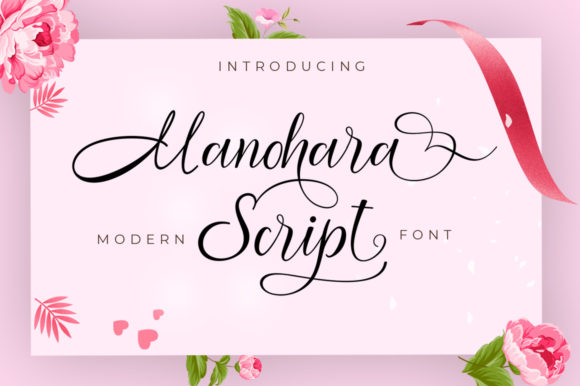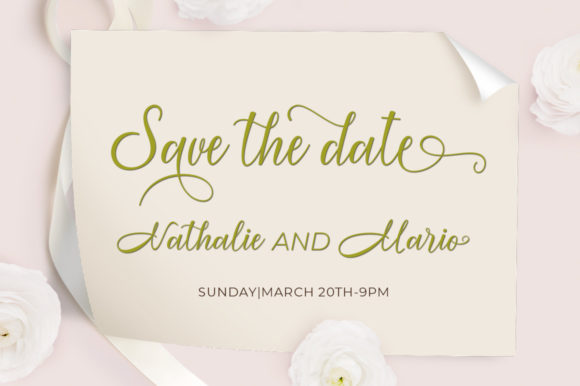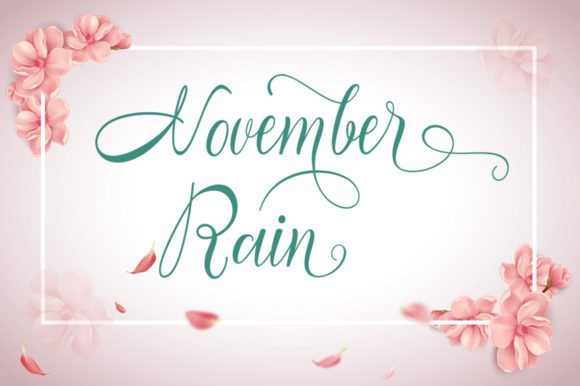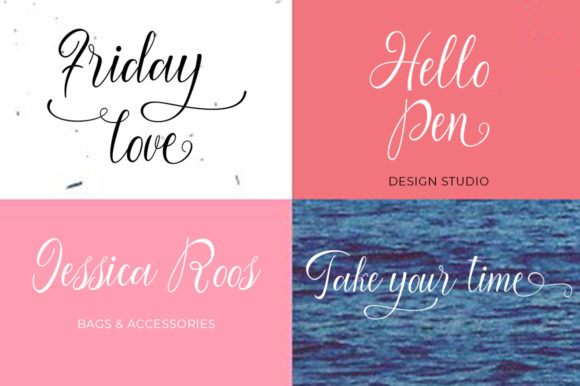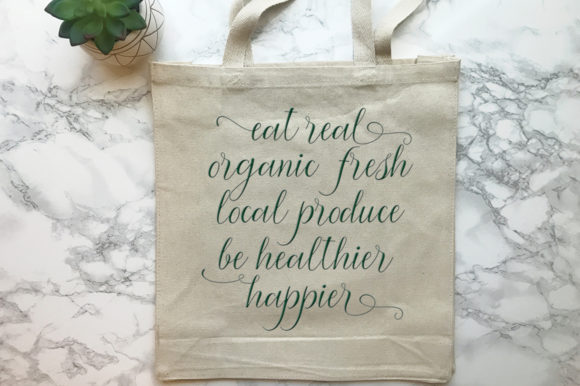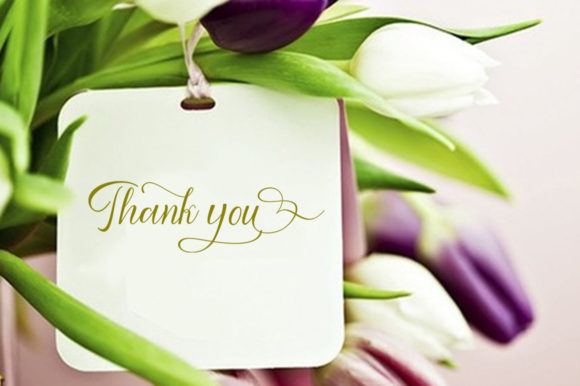
Manohara Font
About Manohara Font
Manohara is an incredibly stunning and romantic handwritten font with a bold feel. Use it to turn any design project into a piece of work!